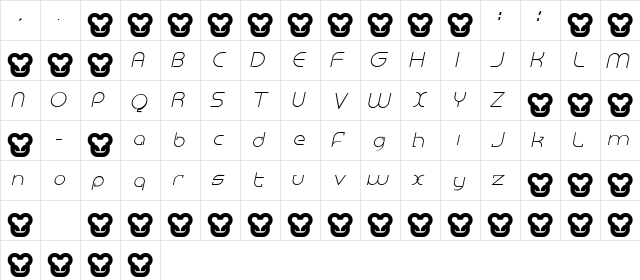
Megalomania Italic
Design Context for Megalomania Typeface
Megalomania offers clean, dependable letterforms without strong stylistic allegiance, making it a practical choice for designers who need flexibility. Its italic angle brings a sense of urgency and motion to the letterforms.